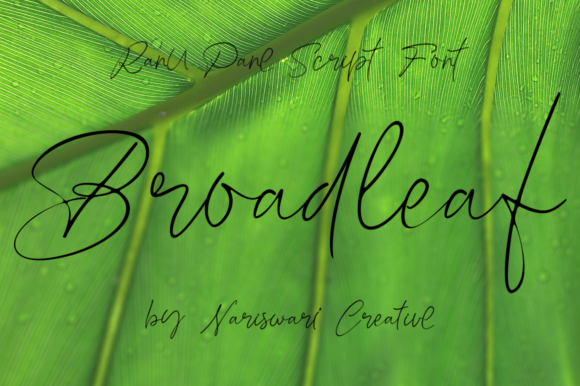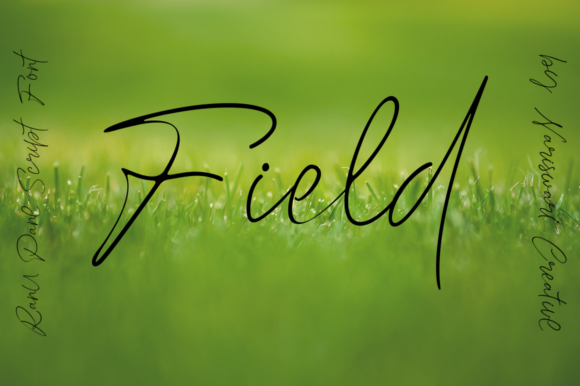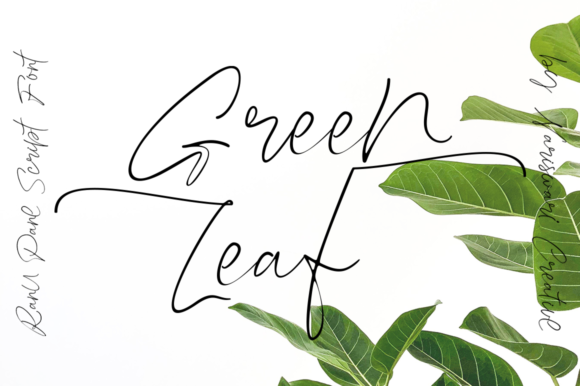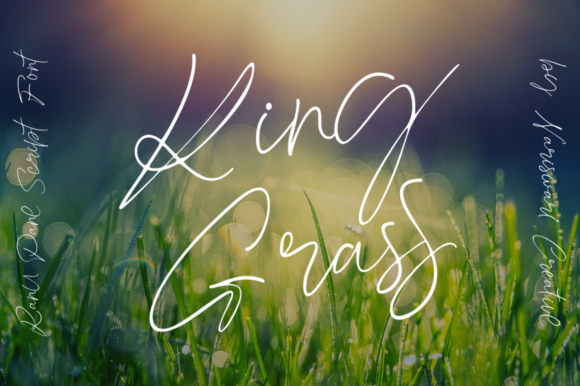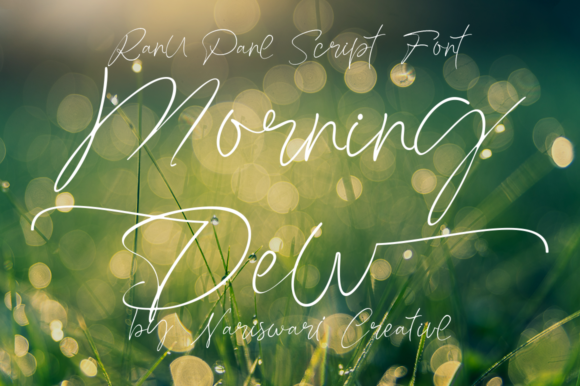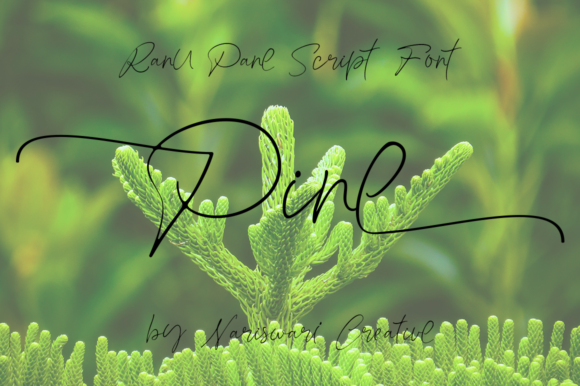
Introduction to Ranu Pane Font
Have you ever been working on a creative project and suddenly, everything falls into place? The colors, the textures, the typography – it all comes together in perfect harmony. For designers, this moment is often the result of finding the perfect font to bring their vision to life. And that’s exactly what the Ranu Pane Font is designed to do.
With its elegant touch and timeless style, the Ranu Pane Font is a high-quality design resource that can elevate any project. Its flowing handwritten script is perfect for creating a sense of sophistication and refinement, making it an ideal choice for designers looking to add a touch of class to their work. Whether you’re working on a branding project, a wedding invitation, or a creative blog post, the Ranu Pane Font is a valuable asset that can help you achieve your design goals.
Key Features of Ranu Pane Font
- Unique and elegant design perfect for creative projects, with a transparent background that allows for versatility in design.
- High-quality font with precise details and smooth lines, ideal for professional designs.
- Unique characteristics include intricate details and ornate patterns, making it a standout choice for creative projects.
- Designed to be used in a variety of contexts, from branding and marketing materials to artwork and creative projects.
Honest Review: Ranu Pane Font
- ✨ Beautifully crafted typography with intricate details and a unique style
- ✨ Excellent legibility, making it perfect for body text and titles
- ⚠️ Limited font variations, which may not cater to diverse design needs
- ⚠️ Some users may find the font too ornate, which can be overwhelming in certain contexts
Overall, I’m impressed with the quality of the Ranu Pane Font, and I appreciate that it’s available for free download. It’s a great resource for designers working on creative projects that require a touch of elegance and sophistication. While it may not be suitable for every design scenario, it’s definitely worth exploring as a design resource.
How to Use Ranu Pane Font
The Ranu Pane Font is a high-quality design resource that offers a unique and creative font style. With its transparent background, it can be easily integrated into various design projects.
To get the most out of the Ranu Pane Font, use it in creative projects where a unique and eye-catching font style is required. Some common use cases include:
- Designing logos and branding materials
- Creating graphics for social media and marketing campaigns
- Developing presentations and reports